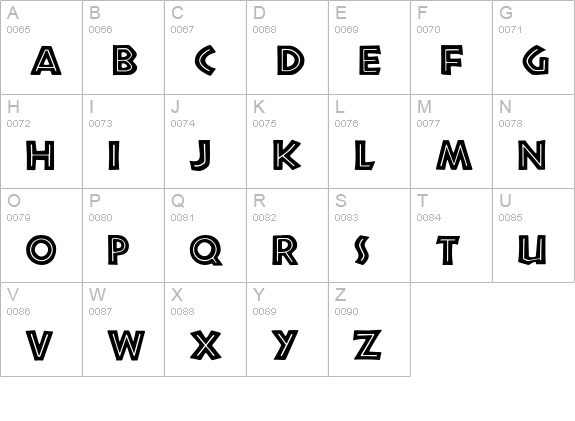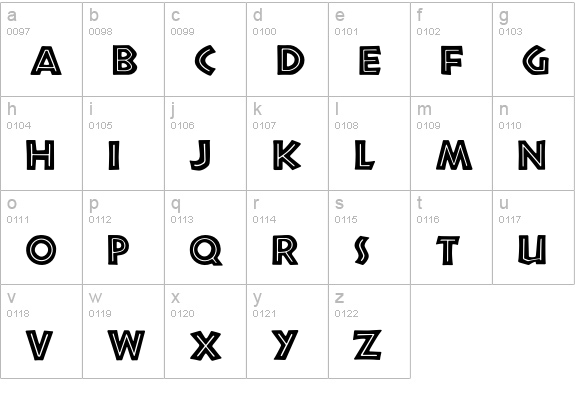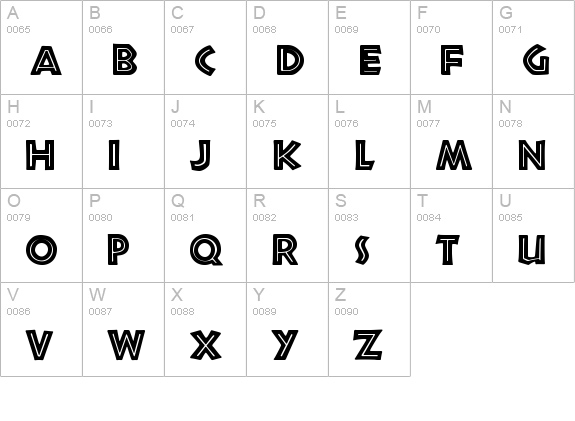
Neuland-Inline font is a versatile typeface that seamlessly blends modernity with a touch of classic elegance. Its sleek and distinctive design makes it perfect for a wide range of creative projects, from branding to editorial design. The clean lines and smooth curves of Neuland-Inline font exude sophistication and style, making it a popular choice among designers and typographers alike. What sets Neuland-Inline font apart is not just its aesthetic appeal, but also the fact that it is available for free download at FontsMarket.com. This means that you can easily access and use this high-quality font in your projects without any cost or restrictions. Whether you're designing a website, creating a logo, or working on a print publication, Neuland-Inline font is sure to elevate your work and leave a lasting impression. With its timeless charm and modern flair, Neuland-Inline font is a must-have addition to any designer's toolkit. Download it for free today and unleash your creativity with this remarkable typeface.